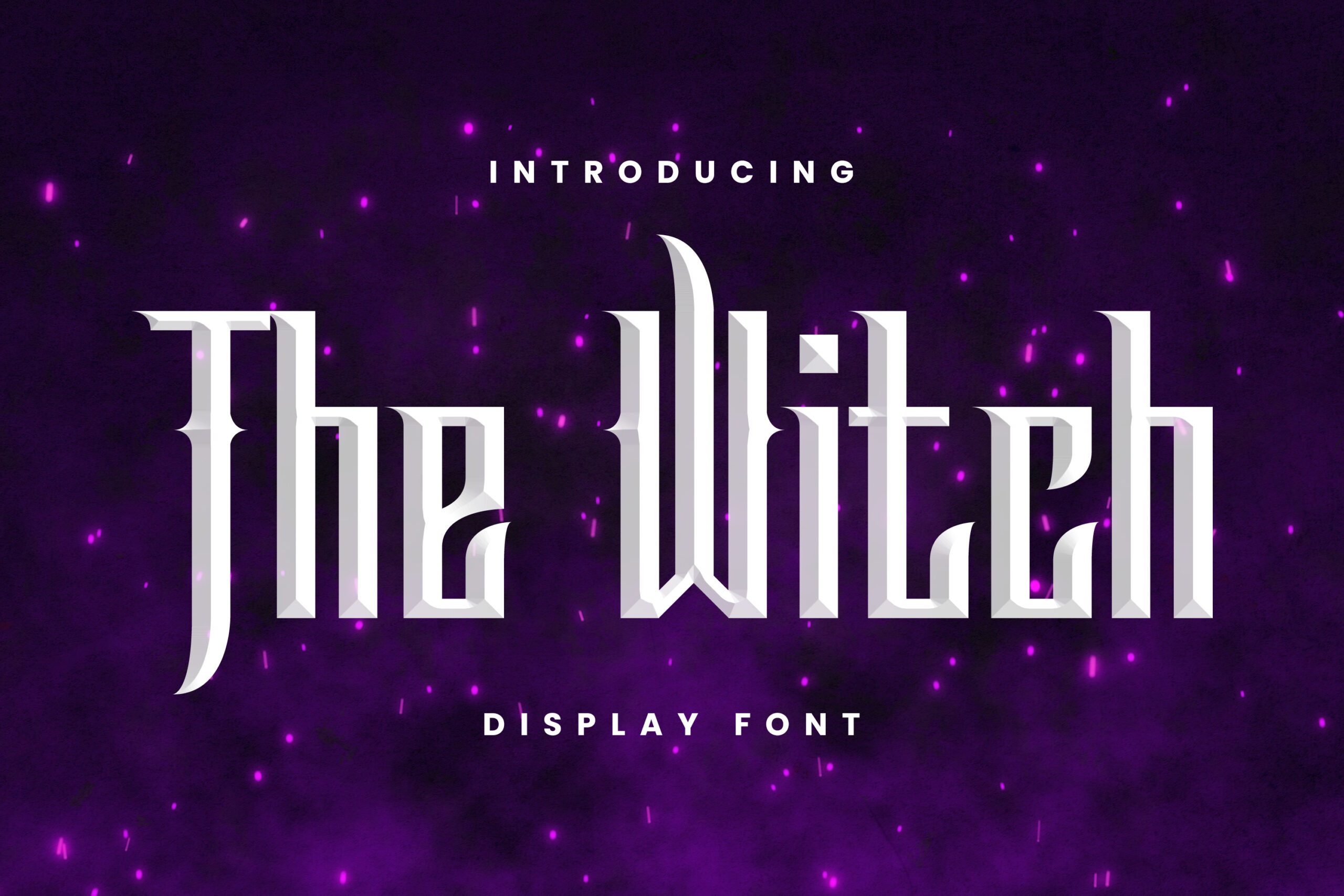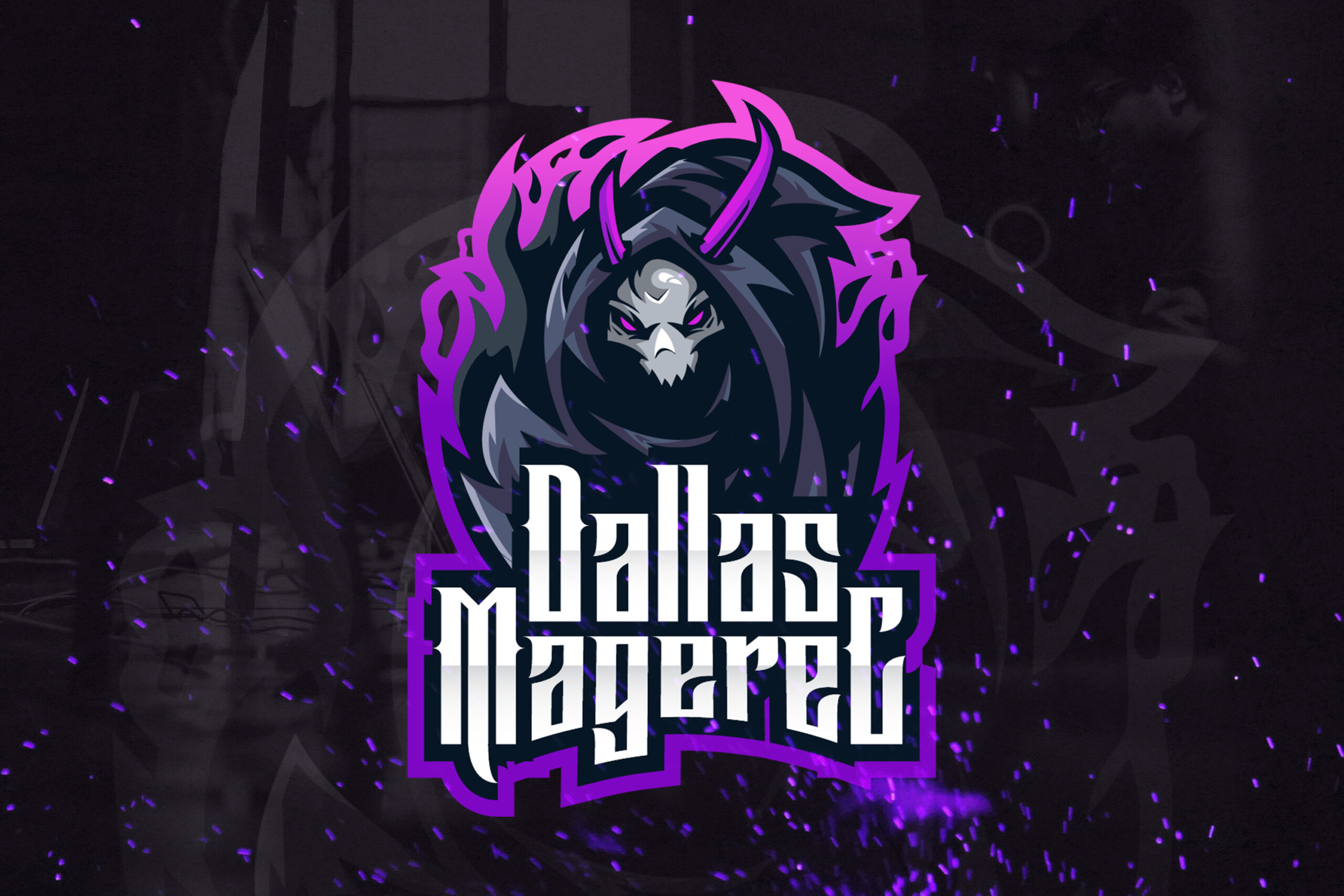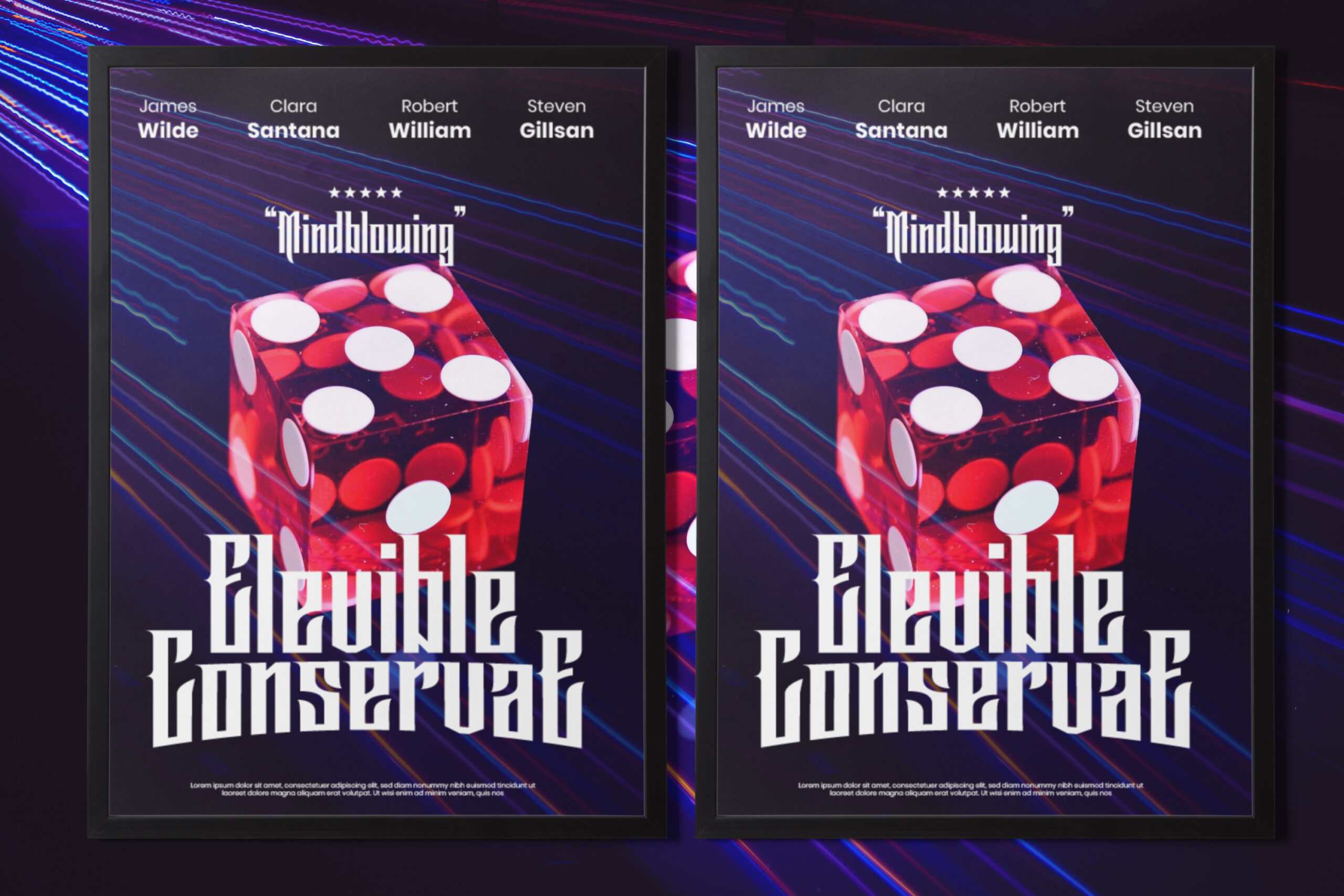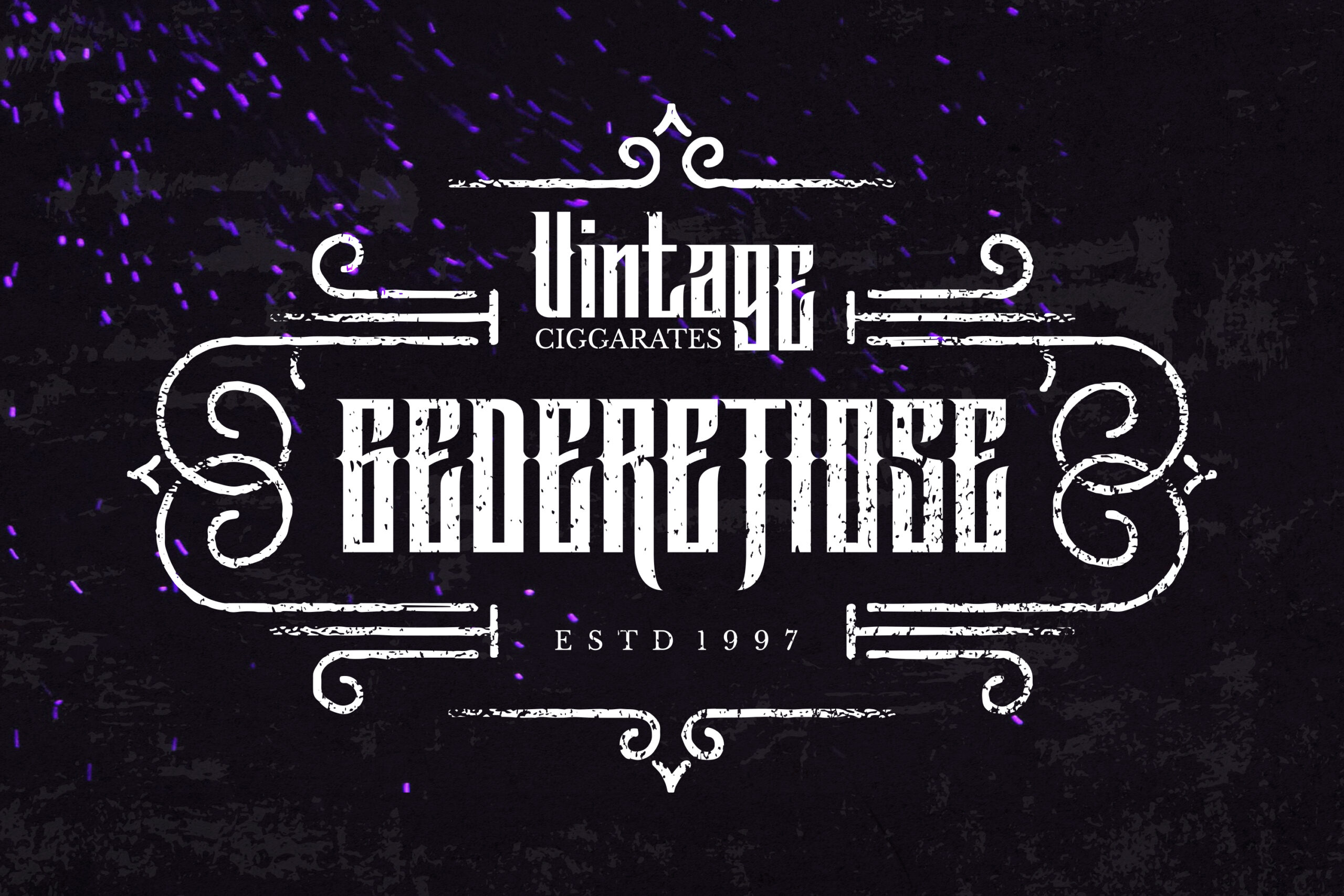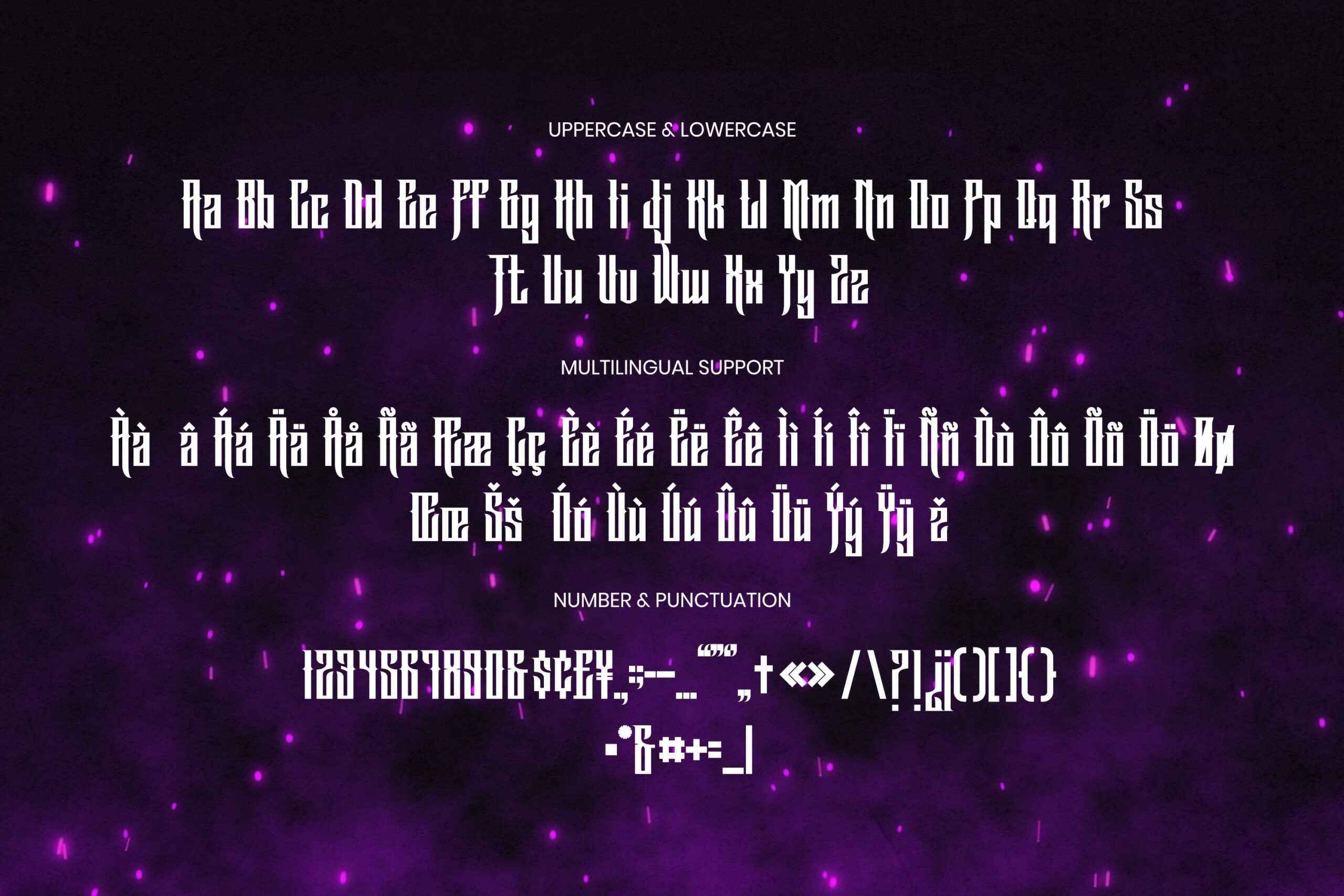
The Witch
Introducing The Witch, a mystical and bold display font inspired by gothic and fantasy themes. Its sharp edges, dramatic curves, and high-contrast strokes bring a powerful presence that makes it perfect for horror titles, dark-themed branding, and supernatural content. With a medieval flair and a modern twist, The Witch casts a strong visual spell in any design it appears in.
Equipped with uppercase, lowercase, numbers, punctuation, and multilingual support, The Witch is versatile enough for logo design, posters, game titles, and event invitations. Whether you’re crafting a dark fantasy book cover or designing an esports logo with magical energy, The Witch delivers an eye-catching and unique typographic personality.